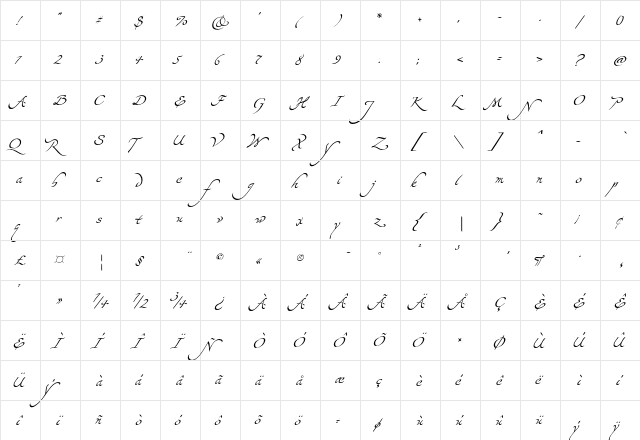
Yevida Regular
| Foundry | Jeremy Dooley |
Design Context for Yevida Typeface
Yevida is a composed and adaptable typeface that performs quietly and consistently across a wide range of design contexts.